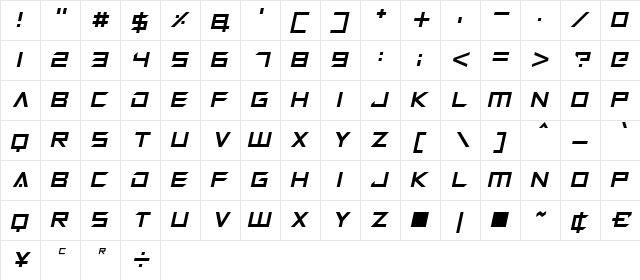
Megabot Five Italic
Design Context for Megabot Five Typeface
Megabot Five offers clean, dependable letterforms without strong stylistic allegiance, making it a practical choice for designers who need flexibility. The dynamic lean of this cut emphasises speed and emphasis in any layout.
Pro Tip: Try Megabot Five for annotation and caption copy alongside an upright companion — the contrast in angle creates a dynamic but ordered typographic system.